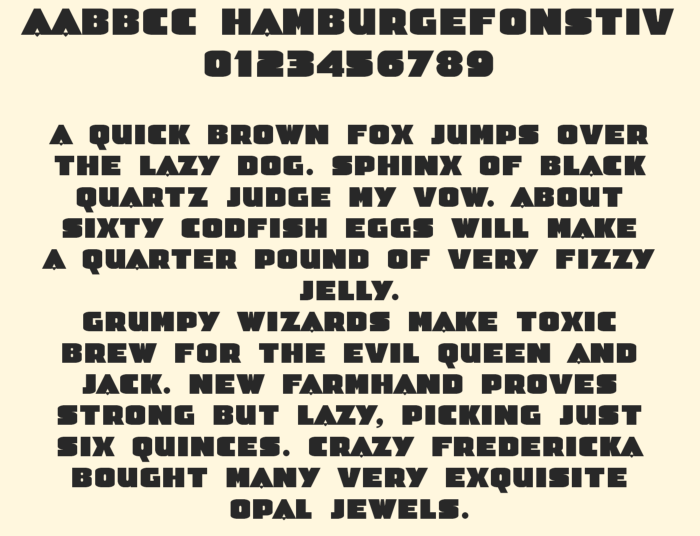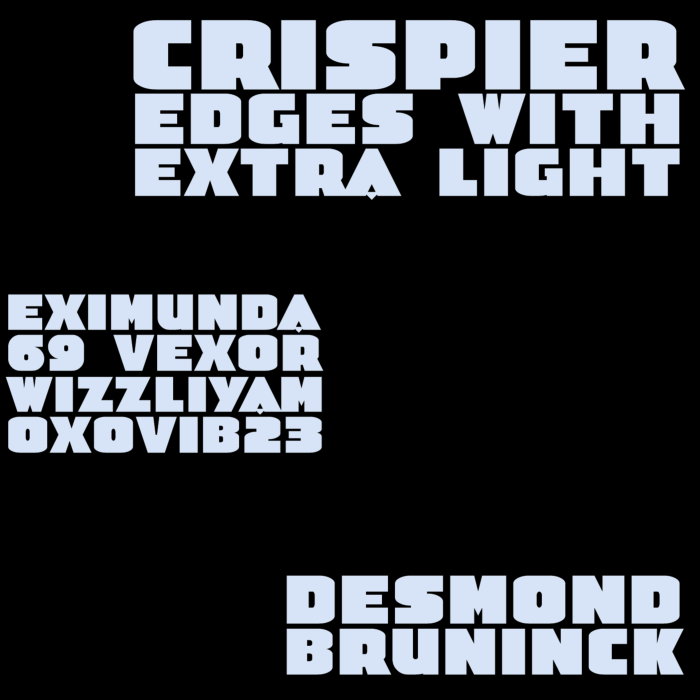
DECO-TESK - Bold Art-Deco display style
=================================
No filters
Grid: 4 × 5 (small grid !)
Glyphs: 3 × 4.5 (+1 ascends & descends for punctuations)
=================================
My 3rd font for the "HeavyComp"
It's a all-caps Art-Deco display font.
Getting everything in proportion (diagonals, contrast and horizontal white space) proved to be a struggle working within such a confined grid space and without the luxury of any filters. Neither did the vertical stroke weight and short cap-height allow to include overshoots. But the final result doesn't look all that bad I guess..
I did the tedious job of reconstructing all characters that have a counter or some other form of tight negative white space. This in a effort to make the individual characters slightly more recognizable by opening up the negative spaces a tad.